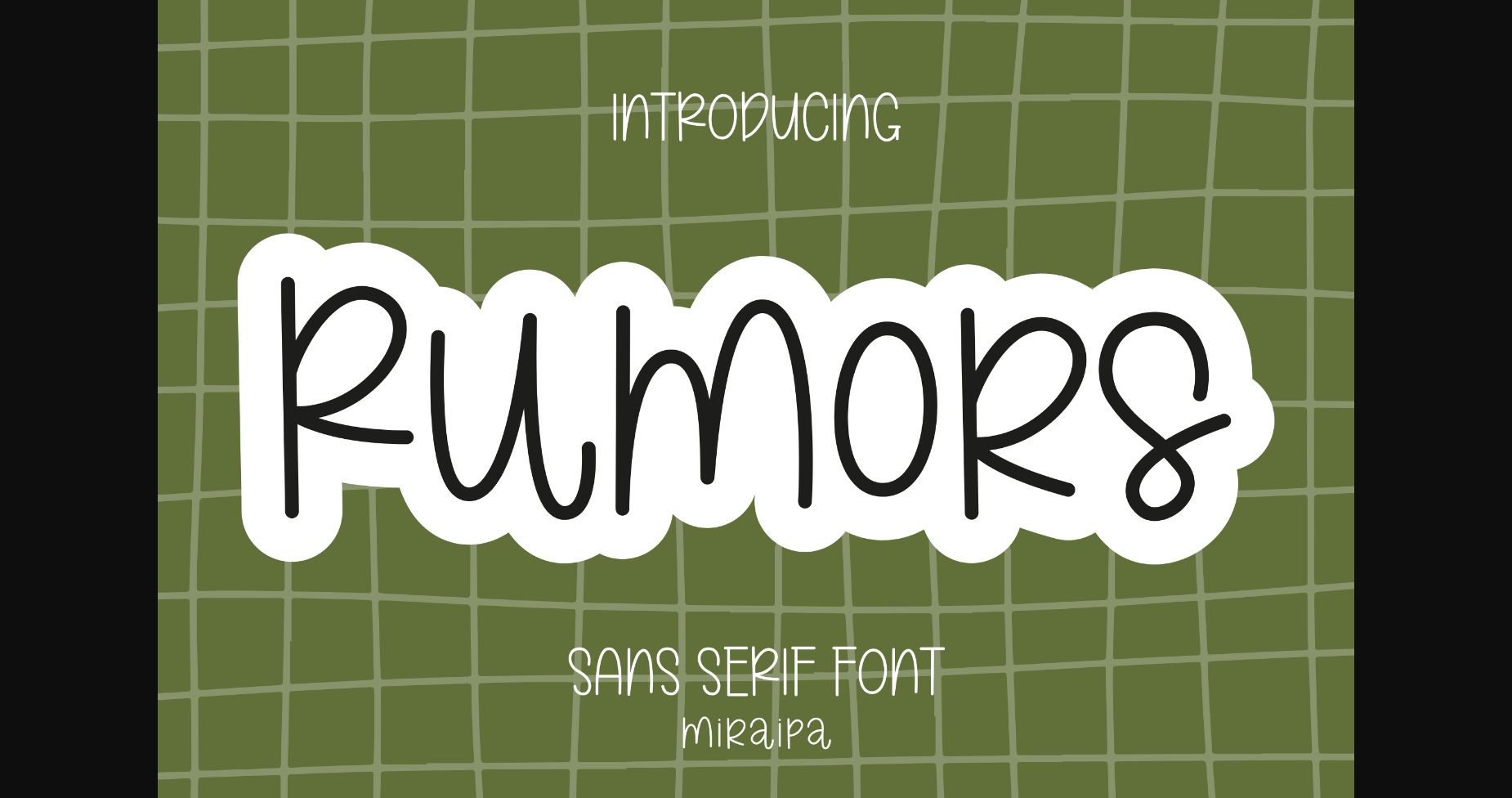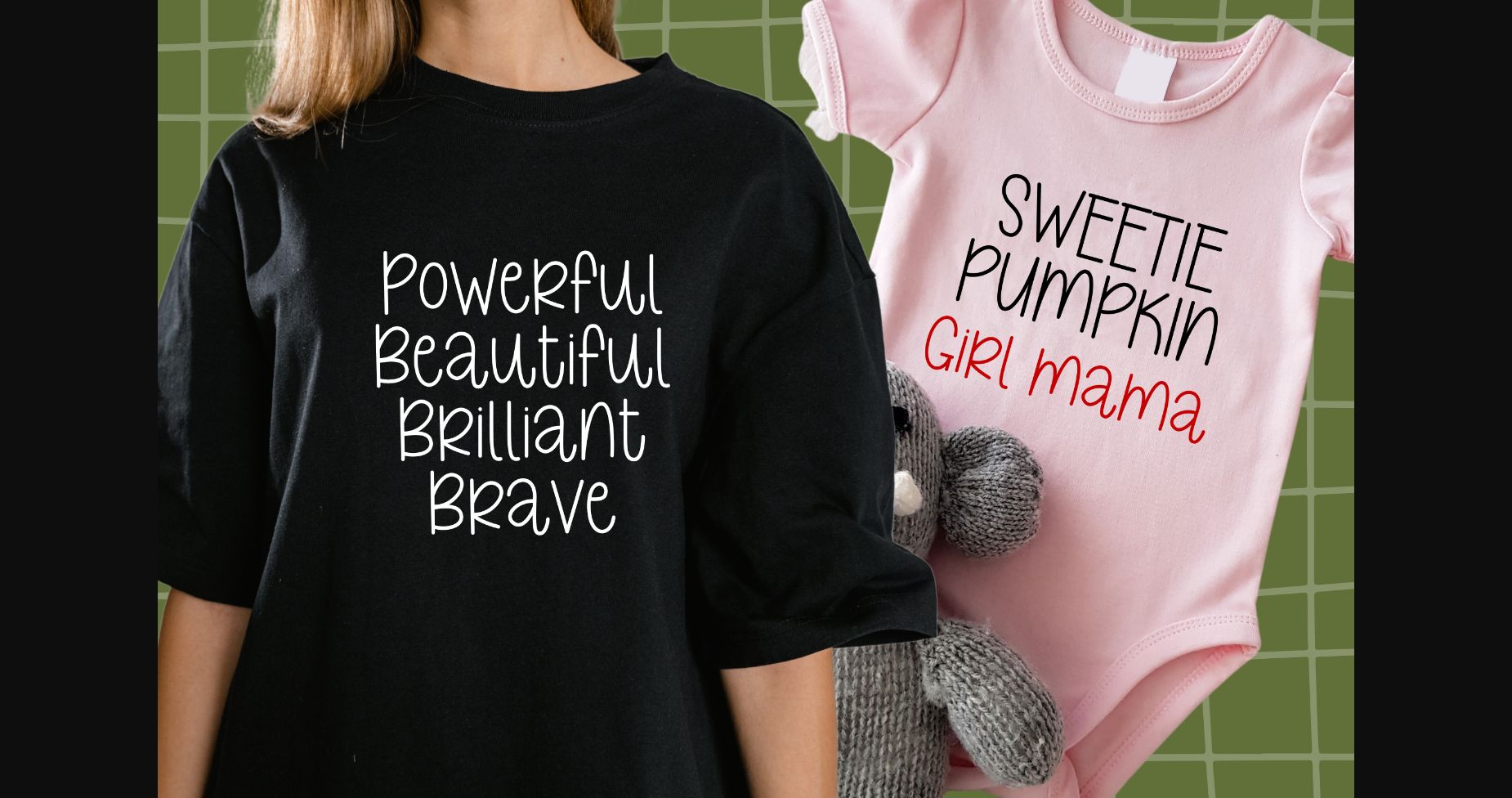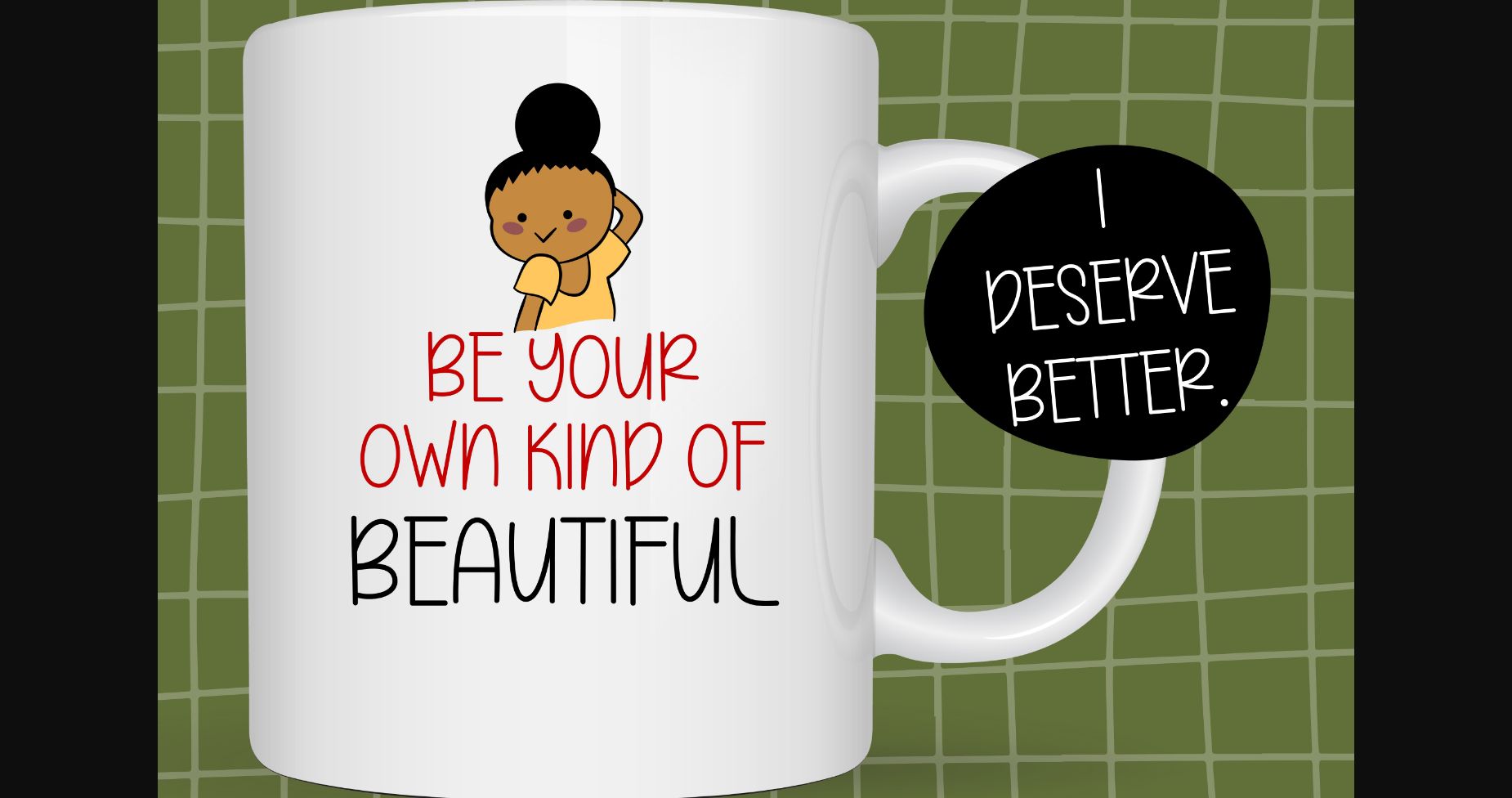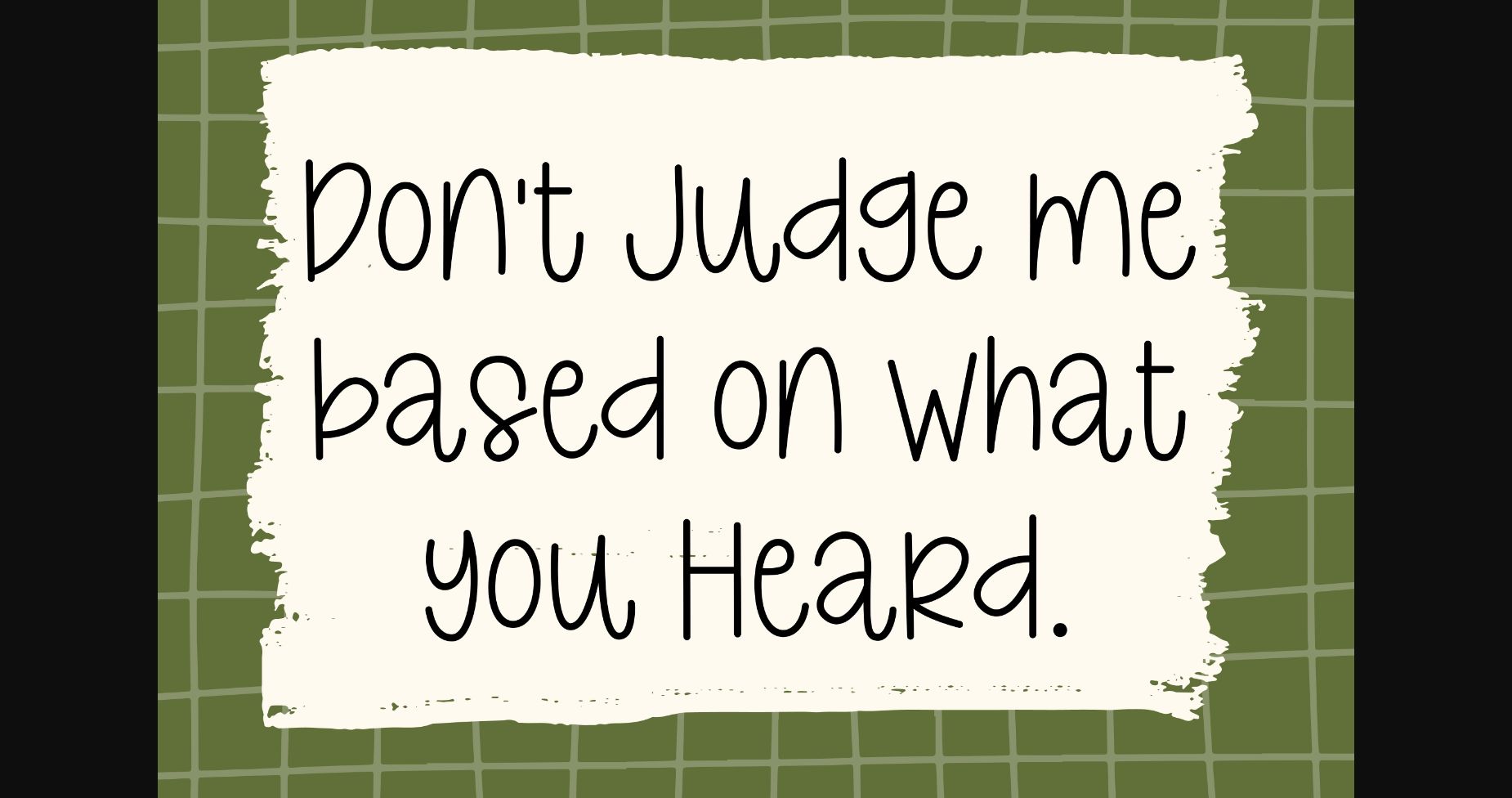
About Rumors Font
Rumors is designed in a cute and playful sans serif font. It is perfect for projects such as Easter, back to school, weddings, party decorations, invitations, Fall, Halloween, Christmas, posters, blogs, clothing, child-related designs, greeting cards, social media posts or anything that needs a friendly touch.